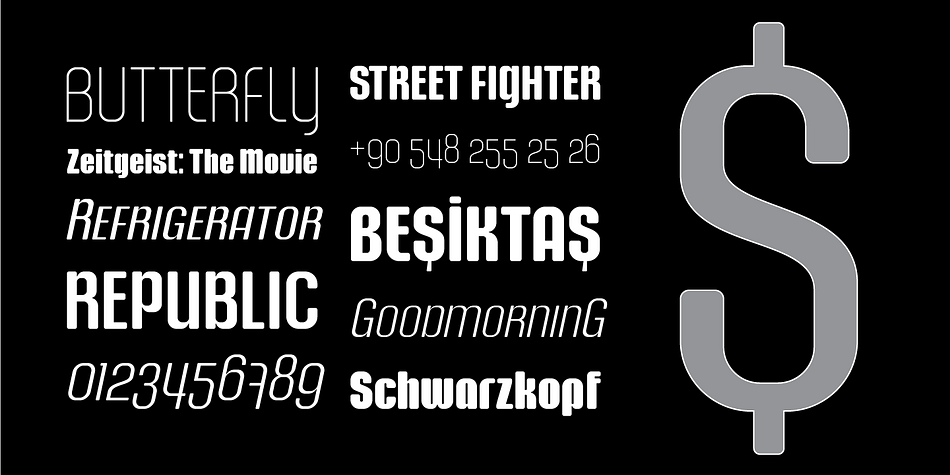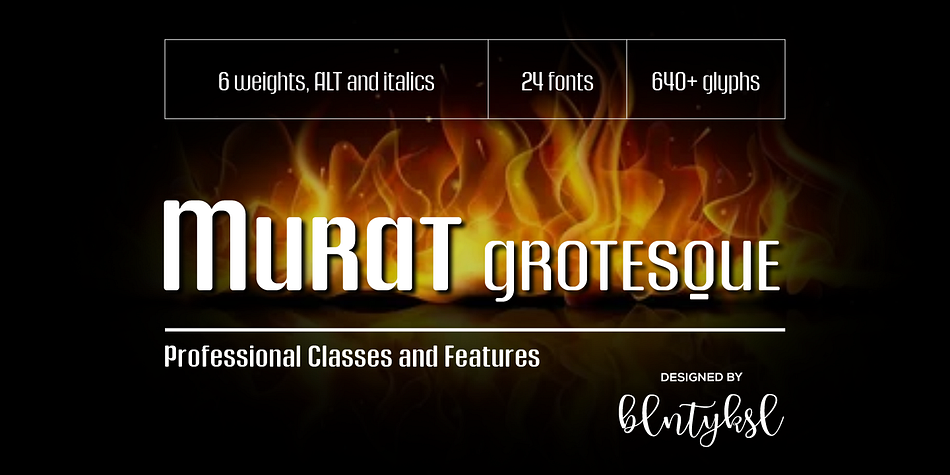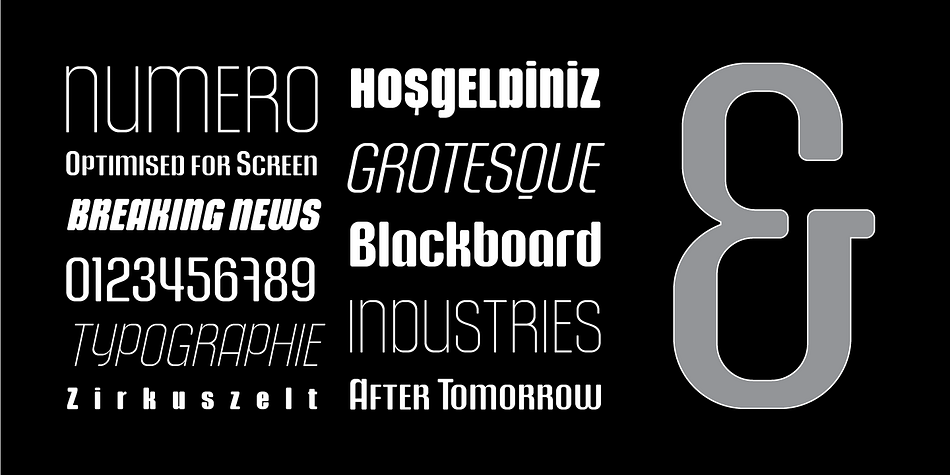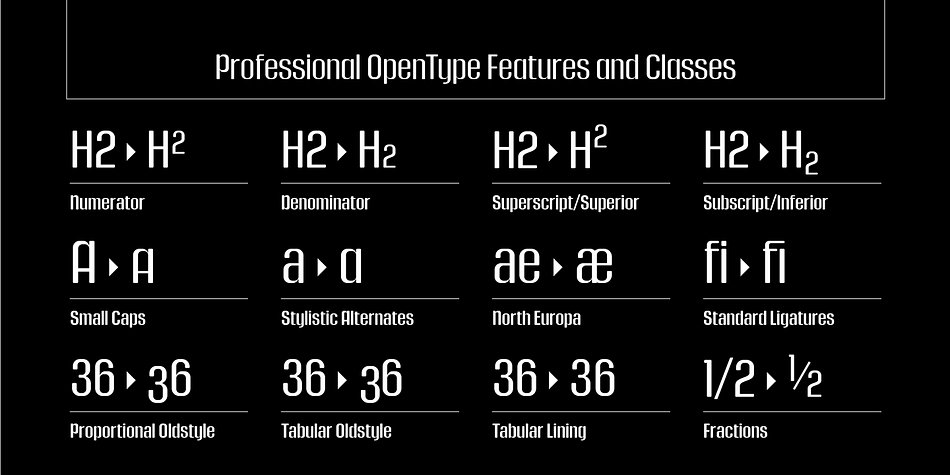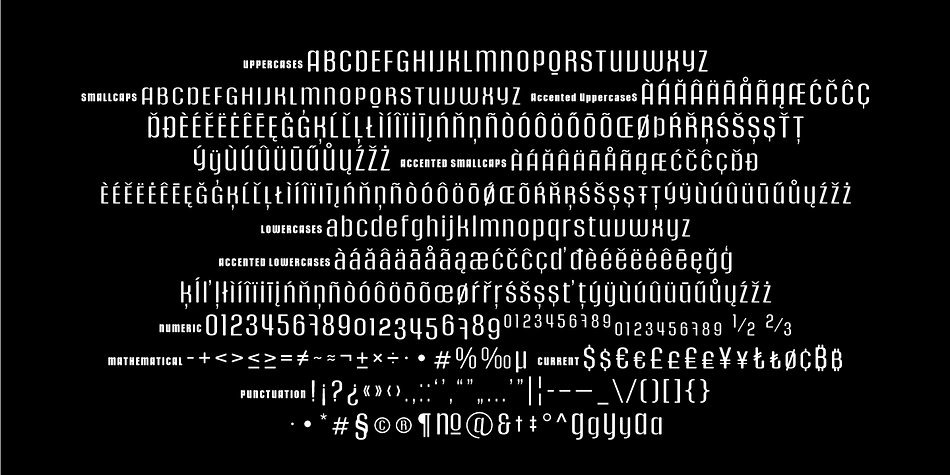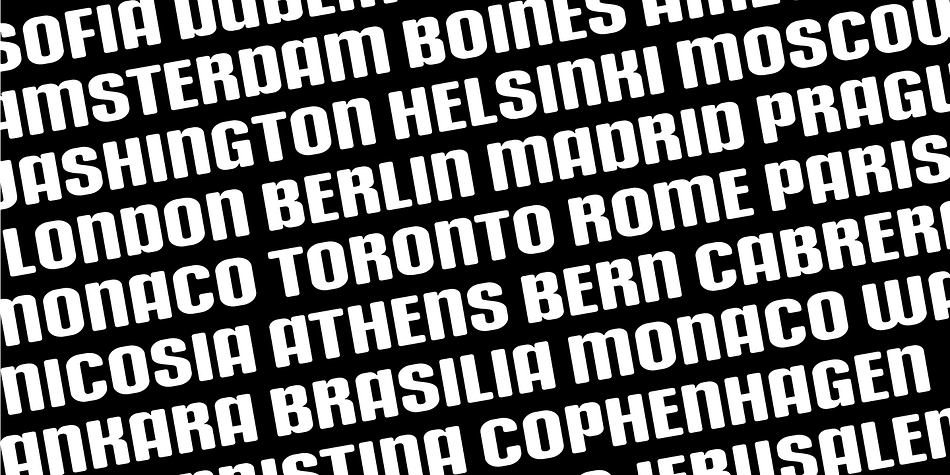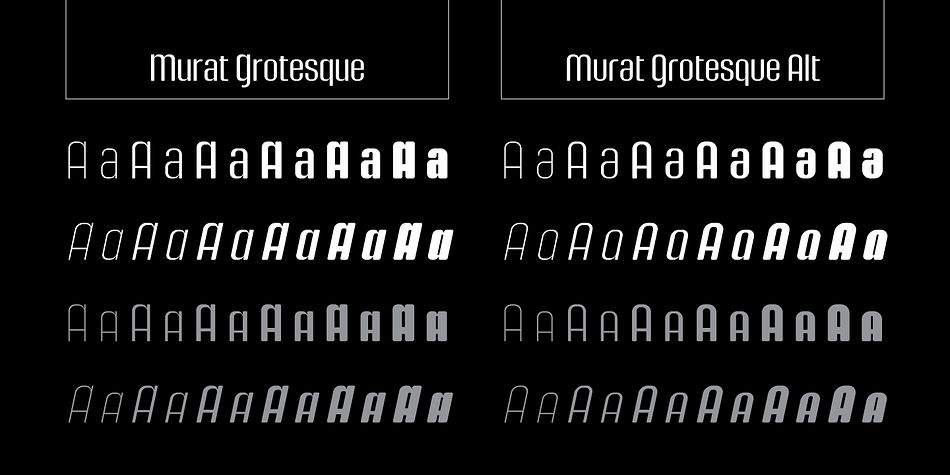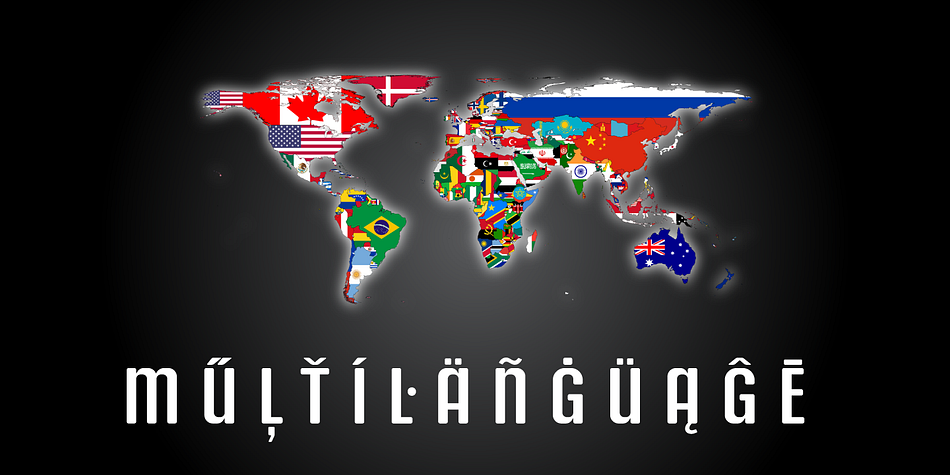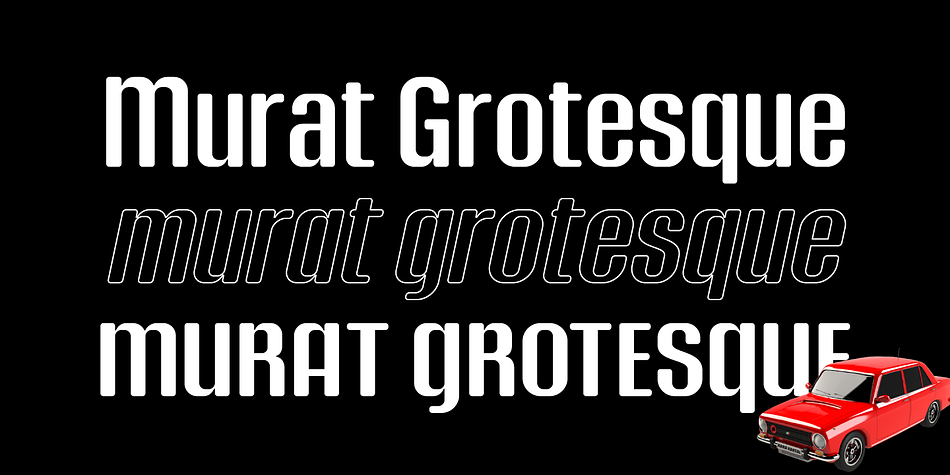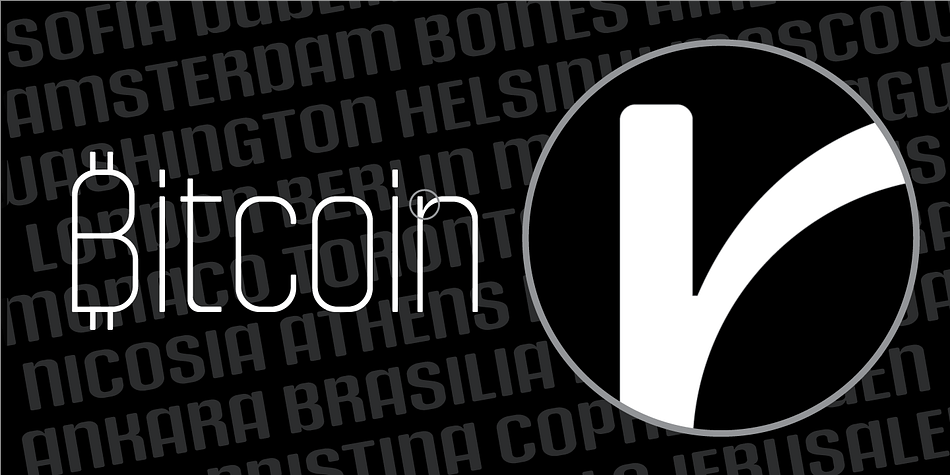
Designed by Bülent Yüksel, Murat Grotesque is a display sans and sans serif font family. This typeface has twenty-four styles and was published by Bülent Yüksel.
“Murat Grotesque” is a sans serif font inspired by the “Impact” character. The corners were softened and many glyph forms were completely changed. It was transformed into a modern line, which is the result of the harmony of width and height, in particular to promote legibility in lowercase letters.
“Murat Grotesque 43 Regular” forms the central point. The first figure of the number describes the stroke thickness: 41 Thin to 46 Black. “Murat Grotesque” comes 6 weights and italics also “Murat Grotesque Alt” comes 6 weights and italics total 24 types. The family contains a set of 600+ characters.
Case-Sensitive Forms, Classes and Features, Small Caps from Letter Cases, Fractions, Superior, Inferior, Denominator, Numerator, Old Style Figures just one touch easy In all graphic programs.
“Murat Grotesque” provides advanced typographical support for Latin-based languages. An extended character set, supporting Central, Western and Eastern European languages, rounds up the family.
Ideally suited for advertising and packaging, editorial and publishing, logo, branding and creative industries, poster and billboards, small text, wayfinding and signage as well as web and screen design.
“Murat Grotesque” is the perfect font for web use.